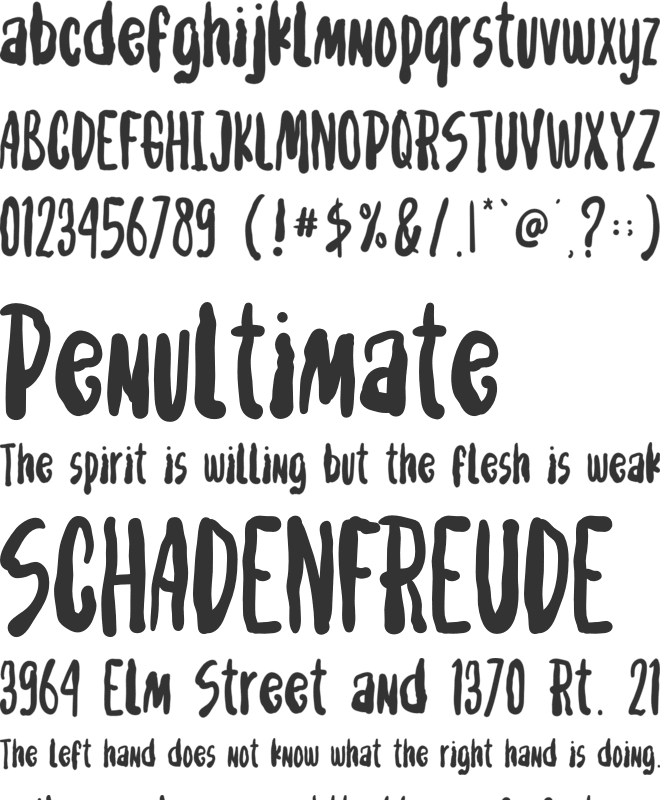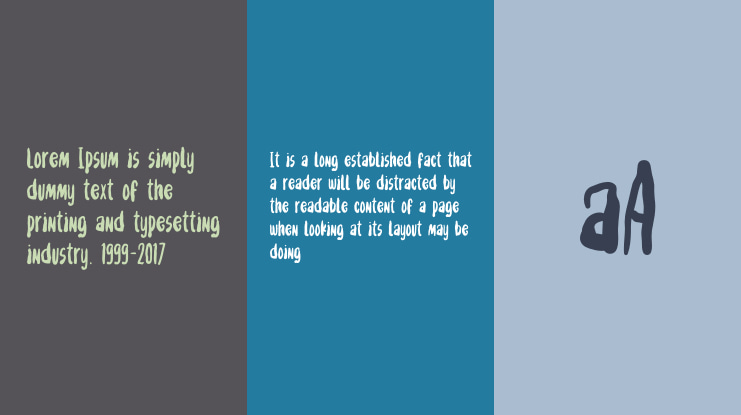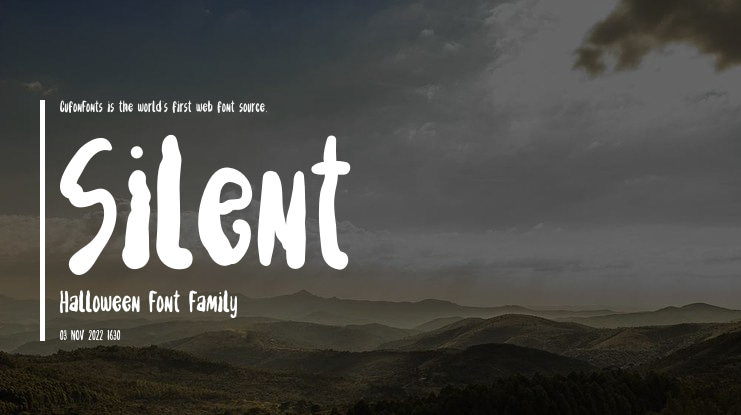
Silent Halloween Font
Jefri Dwi Alfatah
Silent Halloween is a hauntingly fun display font perfect for all your spooky-season designs. With creepy curves and eerie charm, this font brings ghostly vibes to posters, party invitations, packaging, and social media graphics.